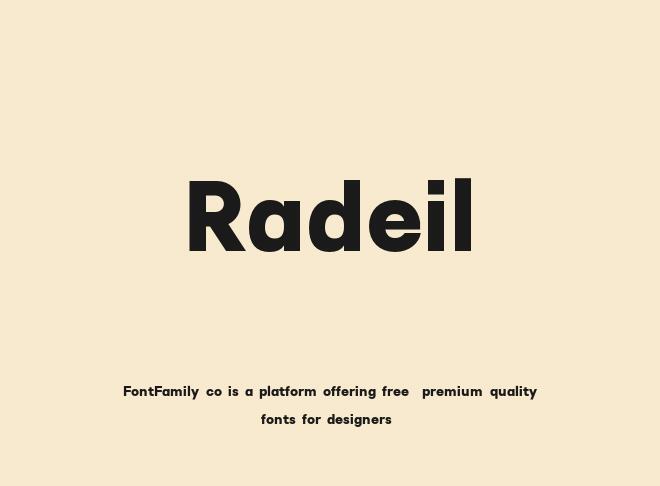
Radeil Font
Introducing Radeil Font, a modern and geometric typeface from Radeil Design Foundry. Its clean lines and minimalistic design make it a perfect choice for designers working on digital and print projects. The font's sleek and contemporary look is reminiscent of popular sans serif fonts, yet it maintains a unique charm with its subtle geometric touches. Ideal for logos, headlines, and display text, Radeil Font can transform any design into a masterpiece of modern simplicity. Its versatility makes it suitable for a wide range of applications, from branding to web design. Radeil Font is an excellent choice if you're looking for a modern, geometric, and minimalistic typeface that can elevate your design work to new heights.